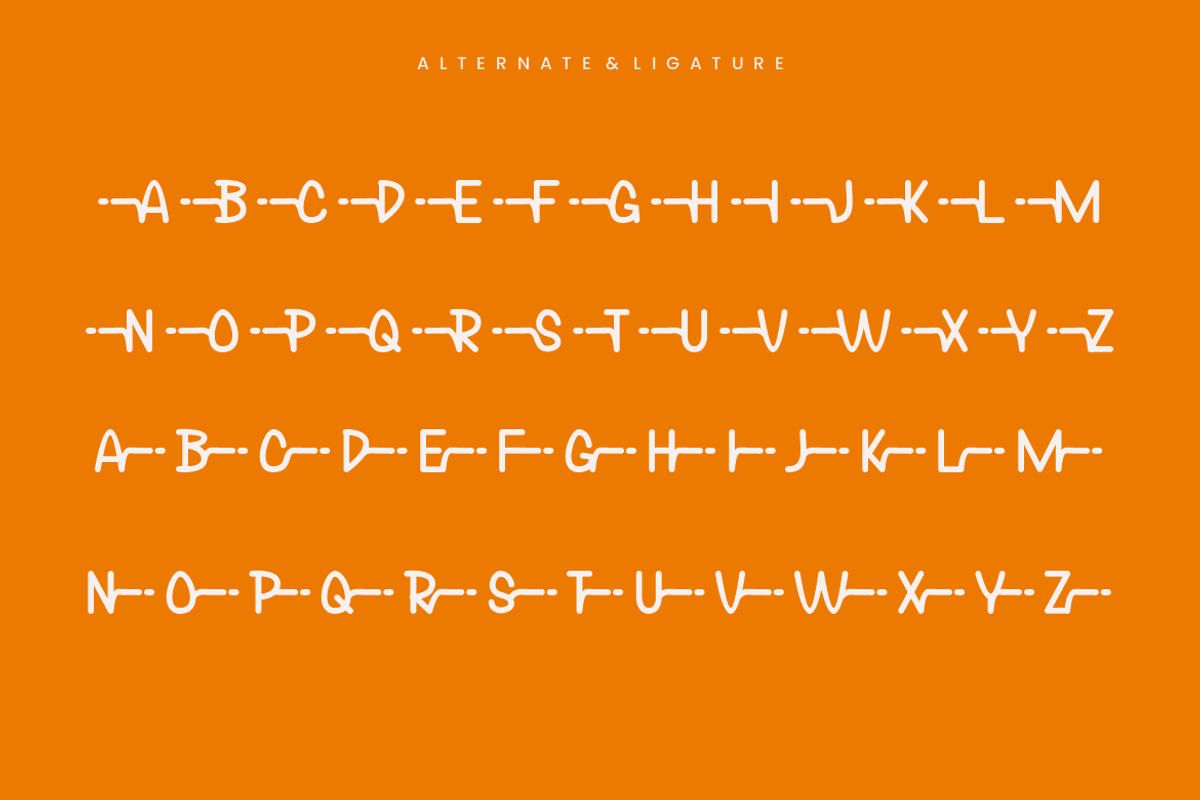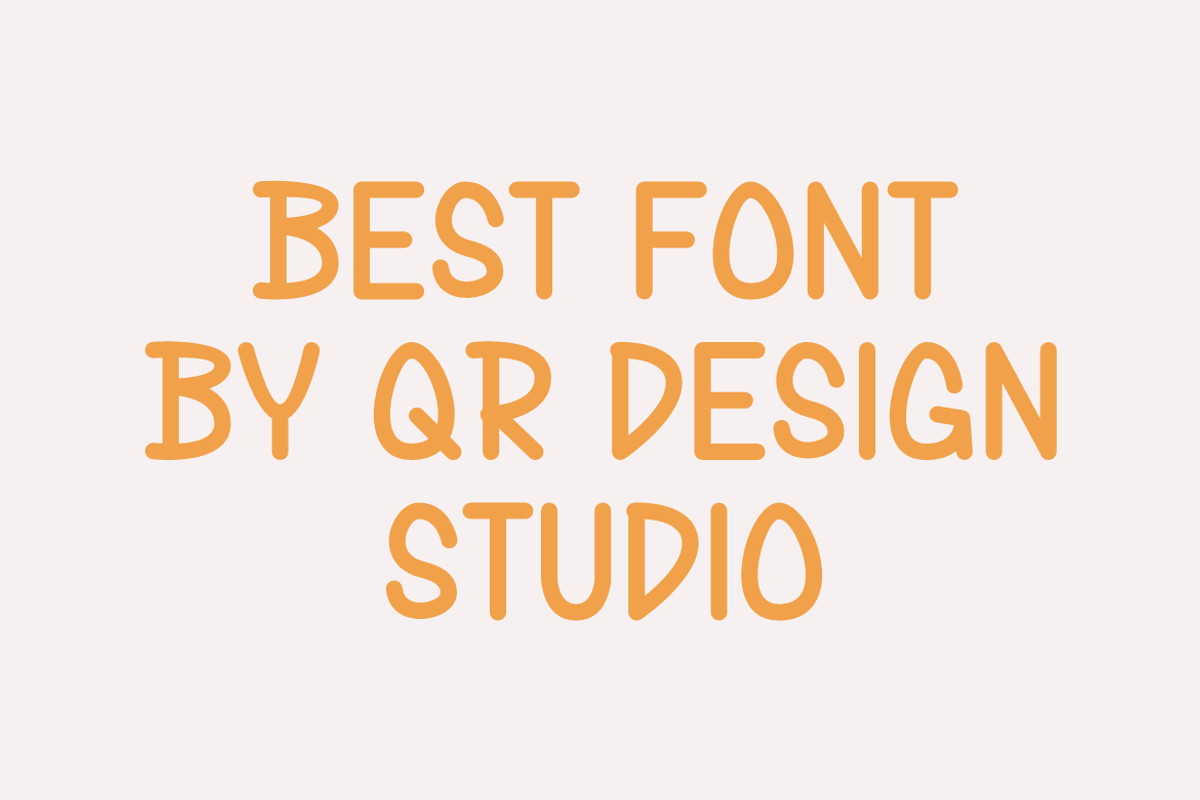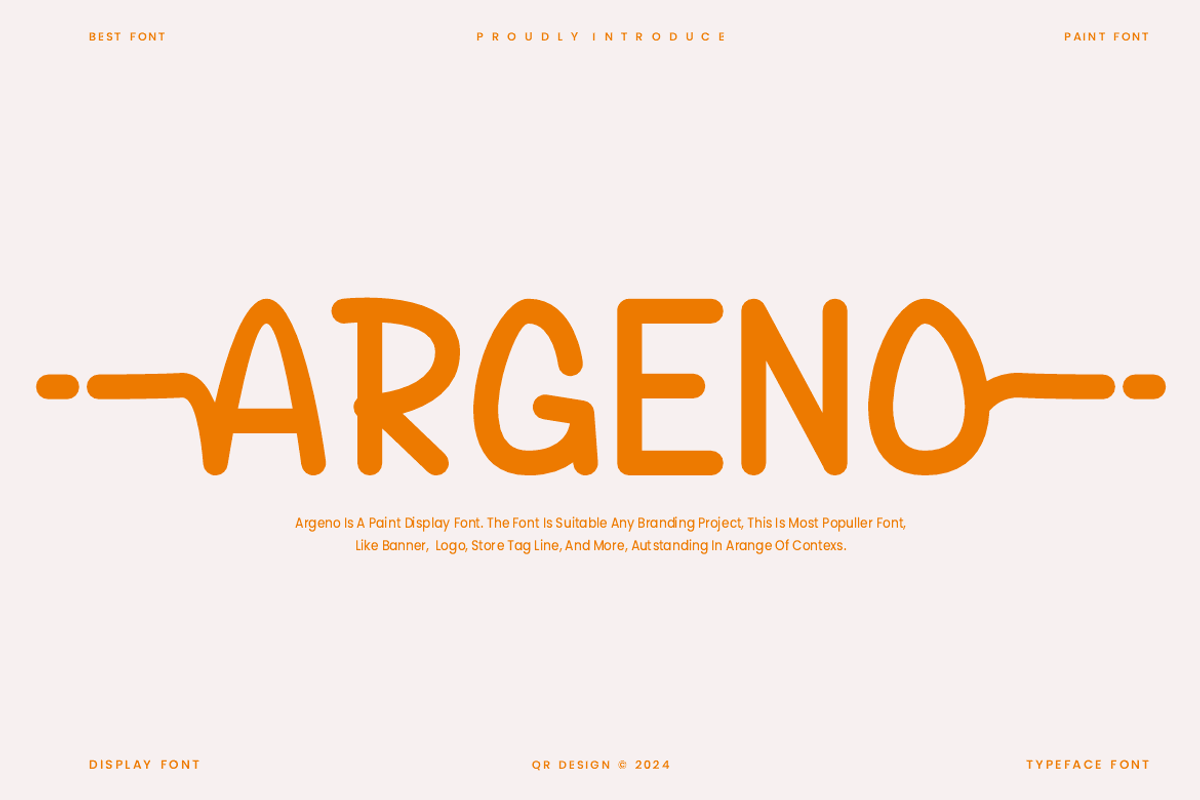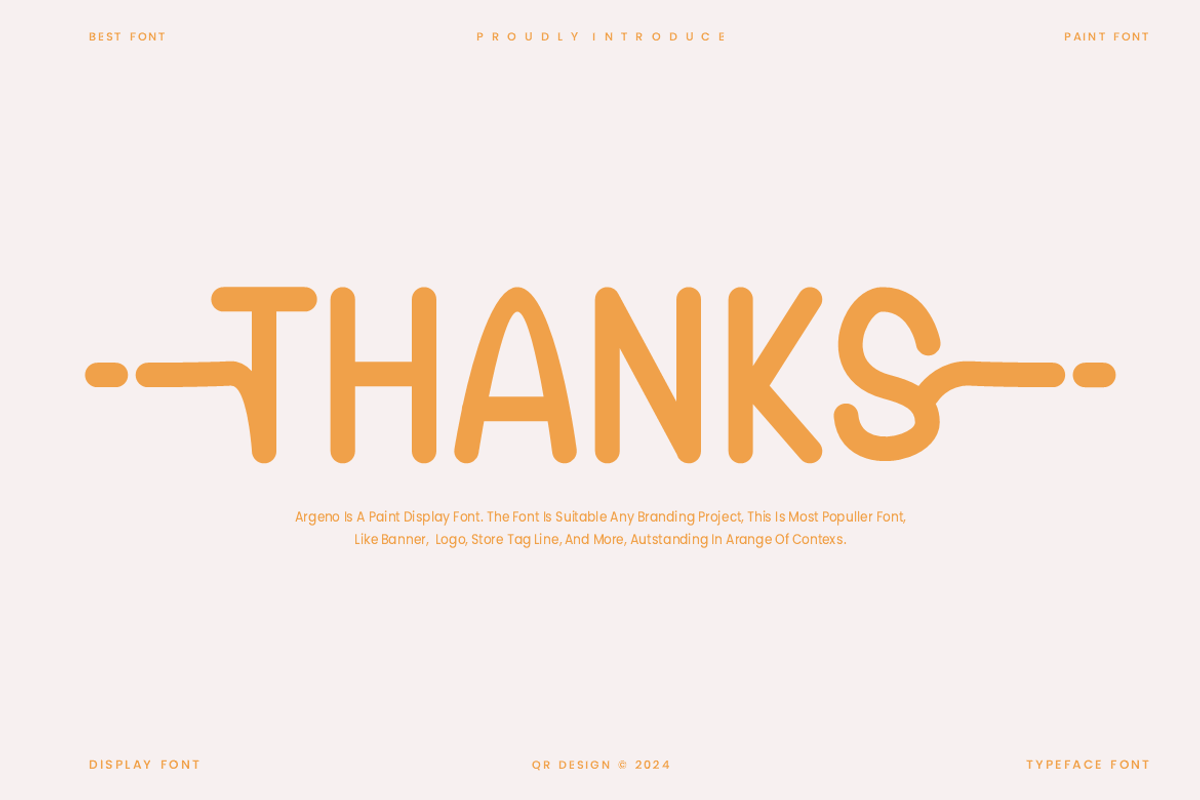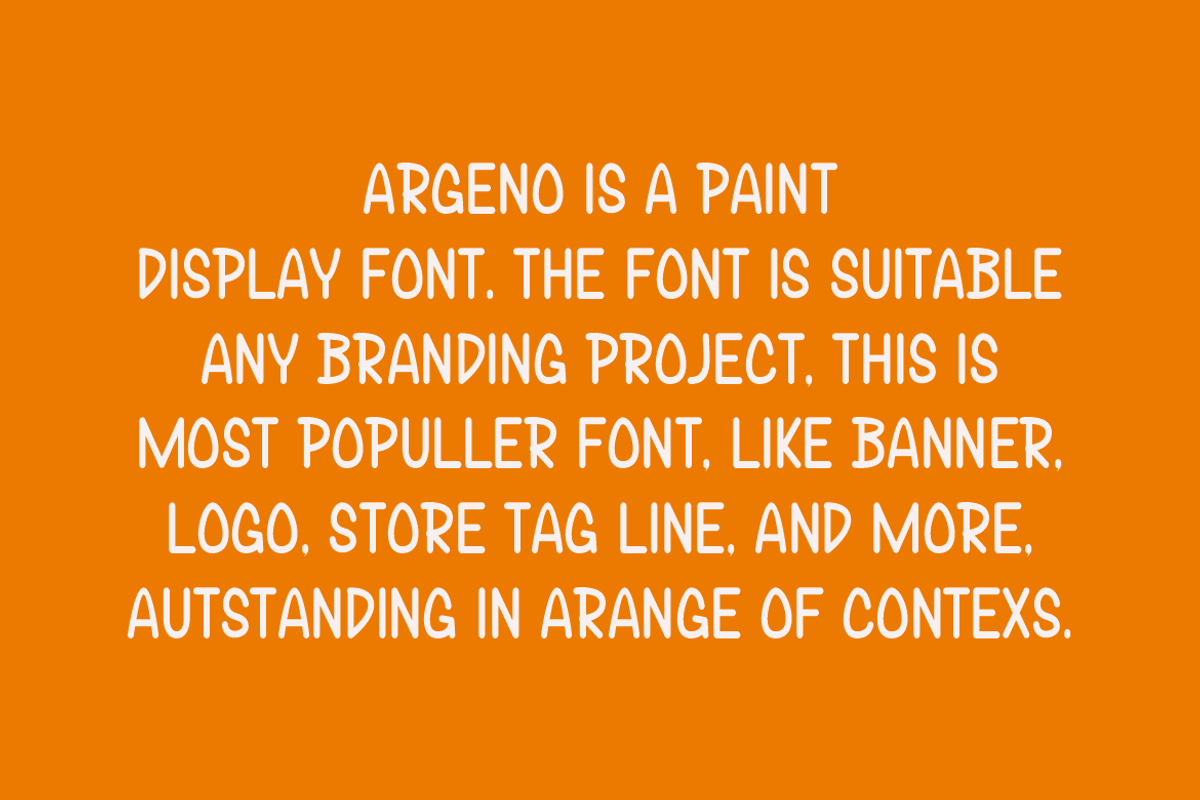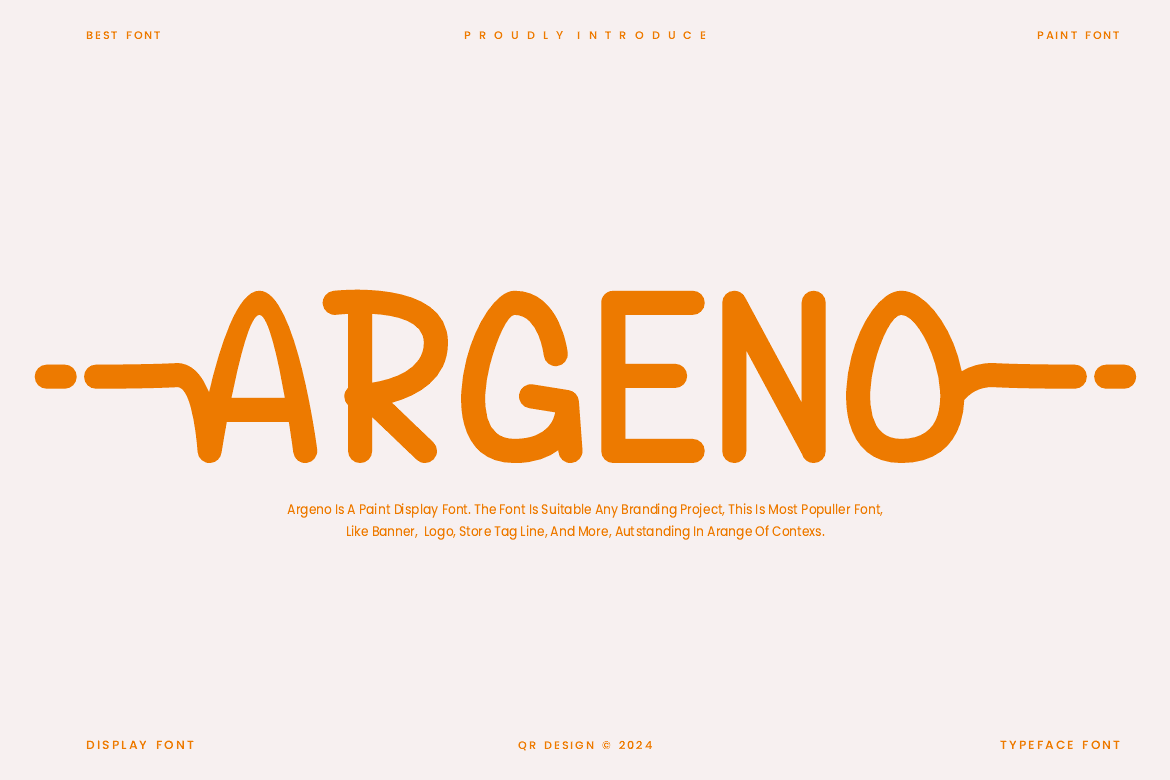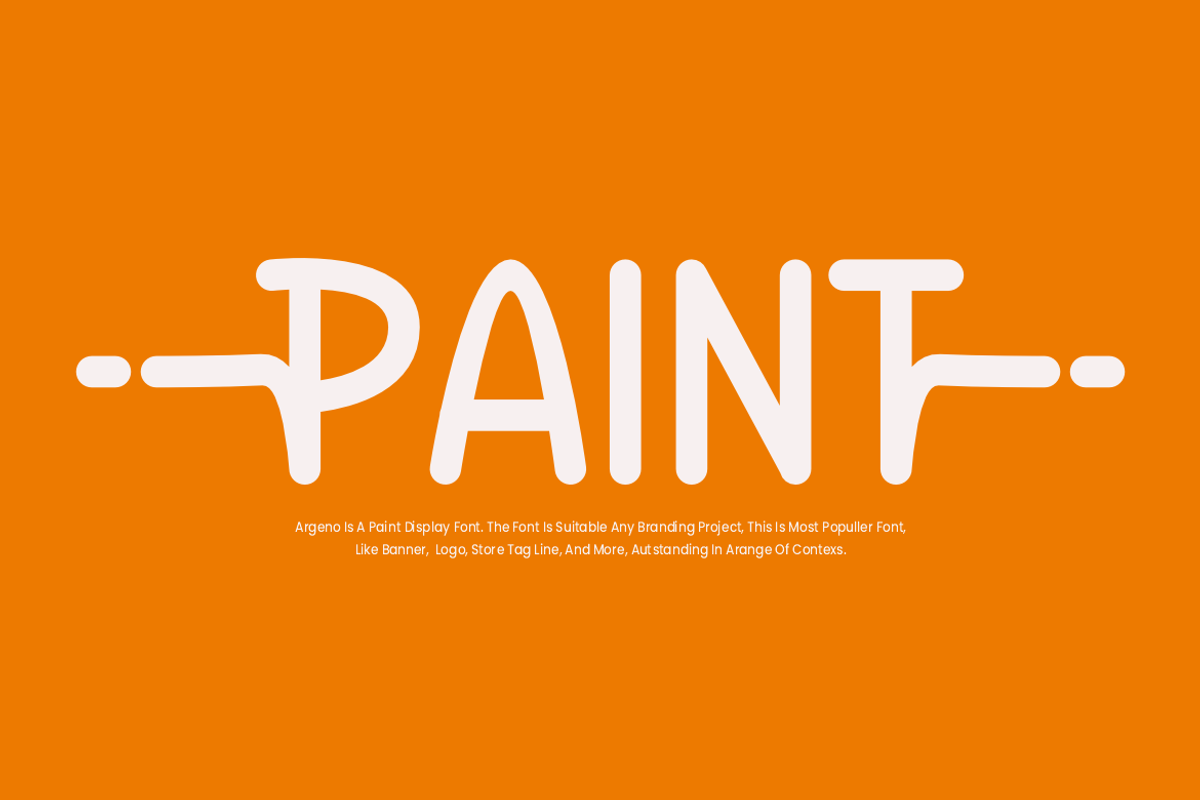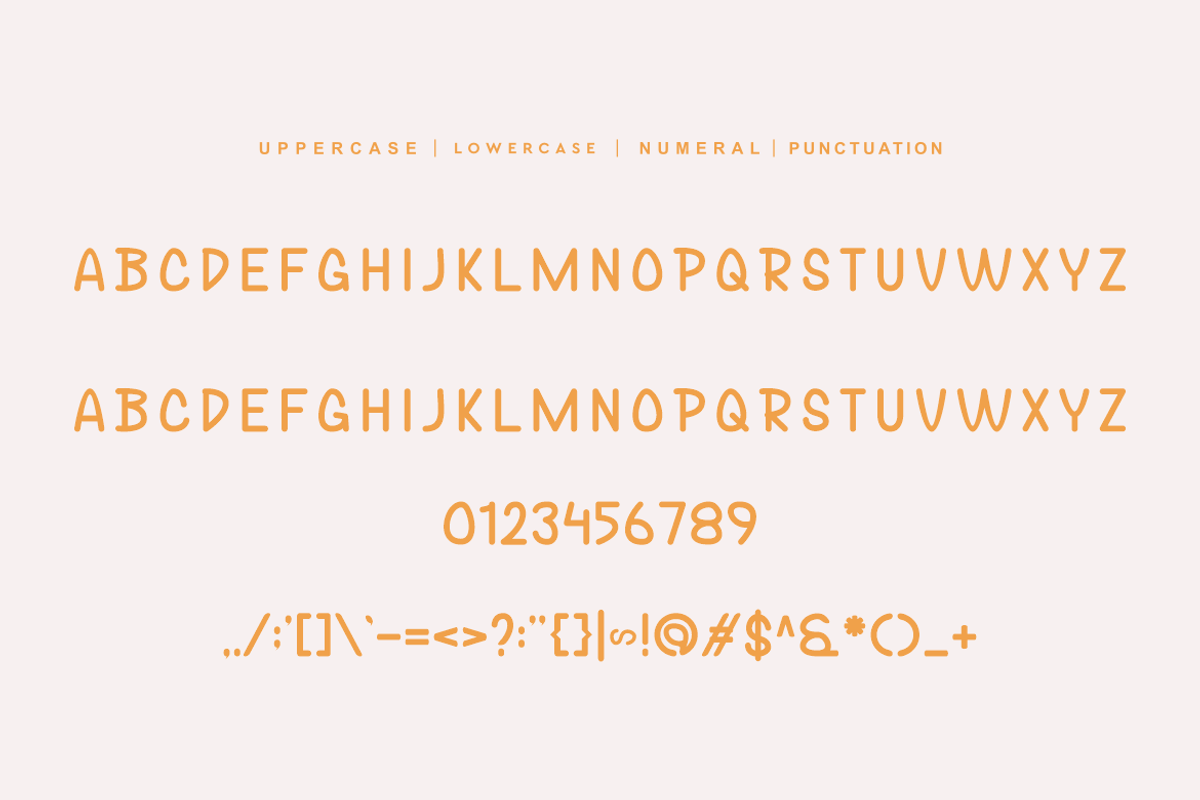
Argeno - Paint Font
Argeno Font is a paint and authentic display font. The font is suitable for any branding project like poster, logo, kids, and many more. Outstanding in a wide range of contexts.